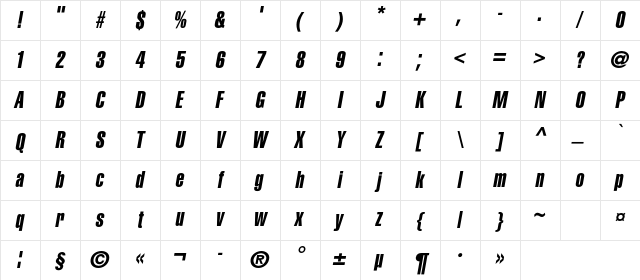
Complete AGLettericaExtraCompressedC Italic glyph index. Displaying only characters natively supported by AGLettericaExtraCompressedC Italic font.
AGLettericaExtraCompressedC is a composed and adaptable typeface that performs quietly and consistently across a wide range of design contexts. The slanted form adds forward momentum and visual energy.
Pro Tip: Use AGLettericaExtraCompressedC for emphasis, pull quotes, and subheadings where its slanted energy can add rhythm to the layout.